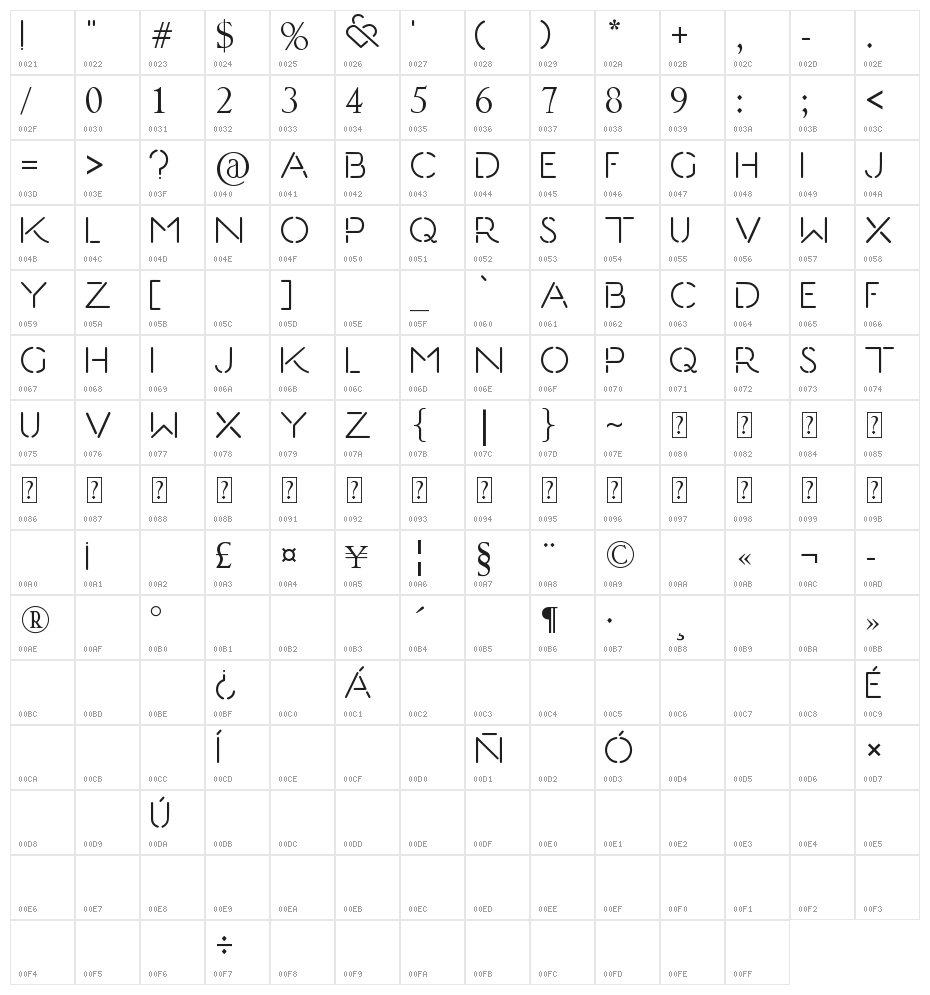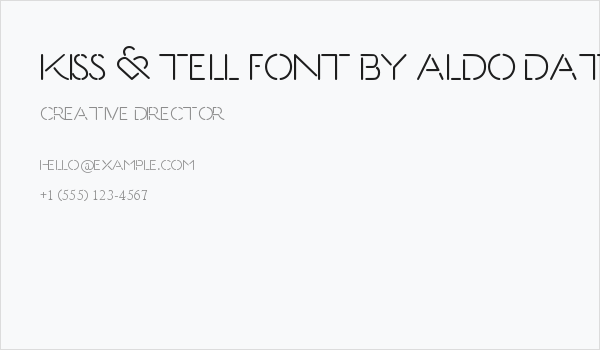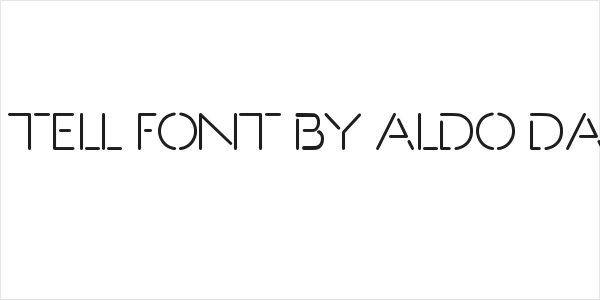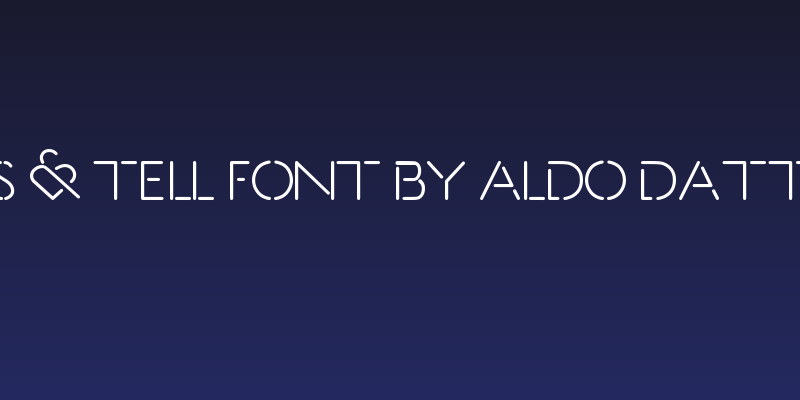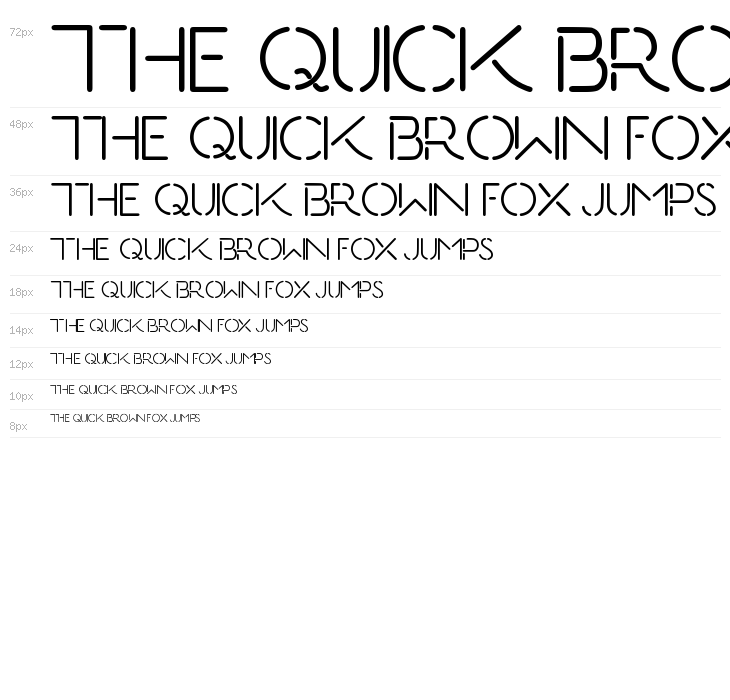
Kiss & Tell Font By Aldo Dattoli Font
Kiss & Tell Font By Aldo Dattoli Description
This font features a modern, geometric design with a unique blend of sharp angles and smooth curves. The uppercase letters are characterized by a distinct cut-out style, giving them a futuristic and minimalist appearance. The lowercase letters maintain a consistent style, complementing the uppercase with their clean lines and open spaces. Numbers are designed with the same geometric precision, ensuring readability and aesthetic appeal. The special characters are crafted to match the overall style, making them suitable for a variety of design applications. The font's overall look is sleek and contemporary, making it ideal for projects that require a modern and innovative touch.
| Use Case | Logos, Headlines, Digital Media |
| Proposed Projects | Ideal for branding, advertising, digital media, and modern editorial design. |